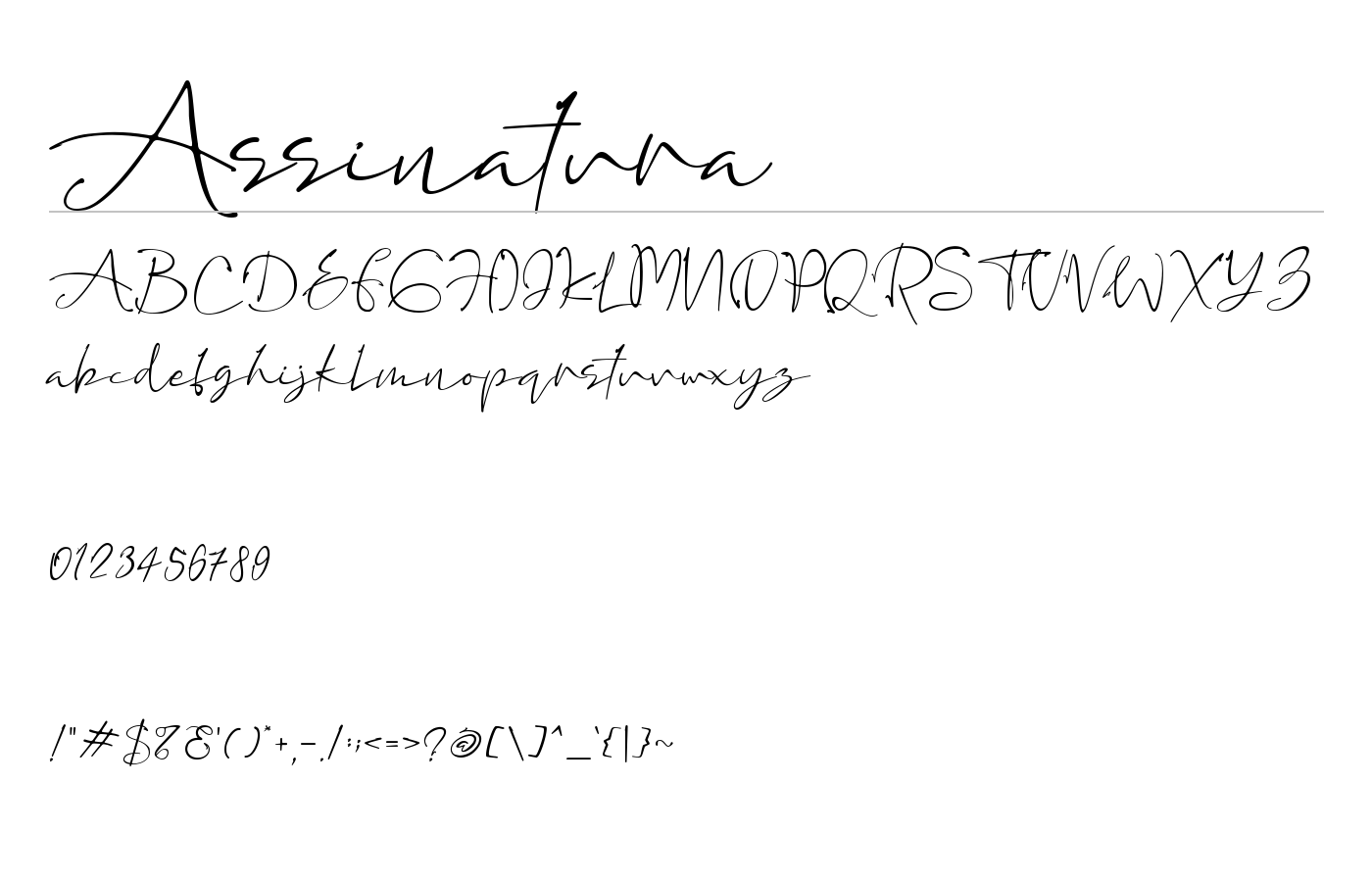
Assinatura is a delicate, handwritten script font that features fine, flowing lines with a natural, personal touch. Its slender strokes and elegant curves give it a refined yet approachable feel, making it ideal for branding, invitations, and creative projects that require a signature-style, artistic look. This font works beautifully in contexts where a sense of individuality and elegance is desired.
Assinatura Font
About Assinatura Font
| Font family | Assinatura Font |
| Designer | Letterara 2019 |